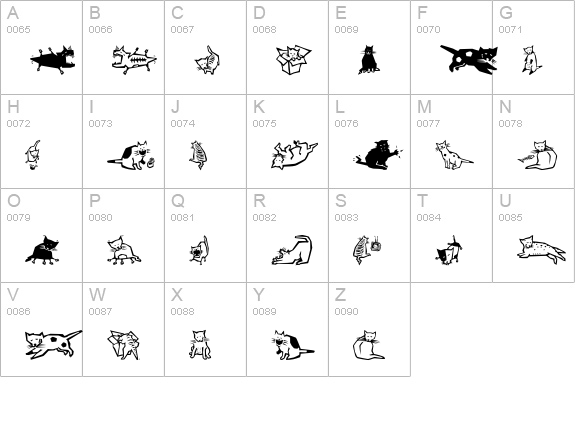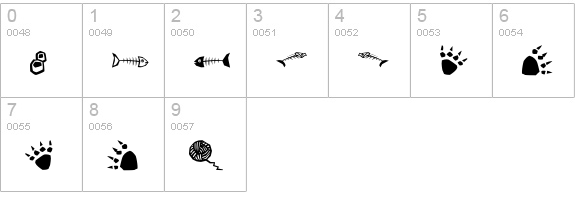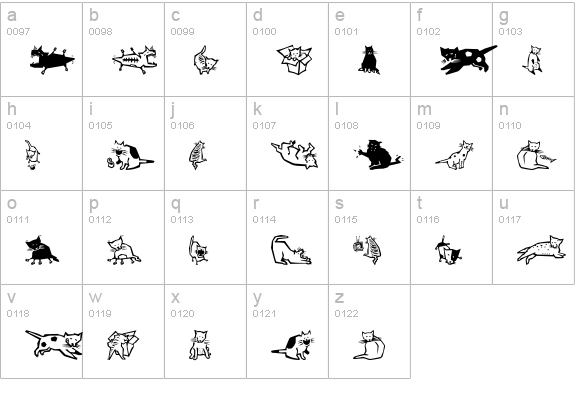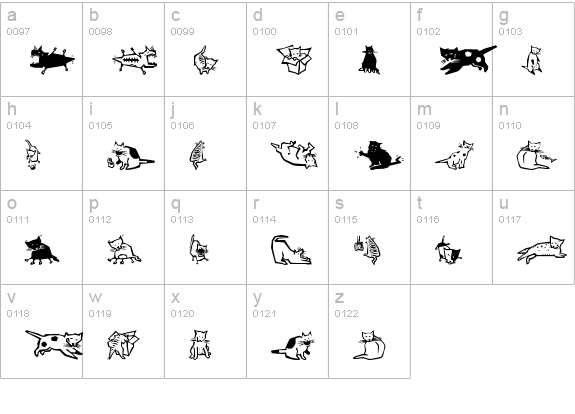
QuadruPetsEF-Cats Font Details
Introducing QuadruPetsEF-Cats, the purrfect font for all your feline-inspired designs! This unique and playful typeface captures the essence of our beloved four-legged friends with its charming cat-themed characters. Each letter is carefully crafted to resemble a cat's silhouette, complete with delicate whiskers and adorable paw prints. QuadruPetsEF-Cats is not only visually captivating but also incredibly versatile. Whether you're designing a logo for a pet store, creating invitations for a cat-themed event, or simply adding a touch of whimsy to your digital projects, this font is sure to make a statement. But what makes QuadruPetsEF-Cats even more amazing is that it's completely free! That's right, you can download this delightful font at no cost from FontsMarket.com. We believe that great design should be accessible to all, which is why we're thrilled to offer QuadruPetsEF-Cats as a free resource for designers, students, and cat lovers alike. With its wide range of characters and stylistic alternates, QuadruPetsEF-Cats gives you the freedom to create truly unique and captivating designs. The font is meticulously designed to ensure smooth and seamless integration into your projects, providing a delightful and cohesive visual experience. So why wait? Unleash your creativity and let QuadruPetsEF-Cats add a touch of feline charm to your designs. Download this amazing font for free at FontsMarket.com today and embark on a whimsical journey filled with endless design possibilities.